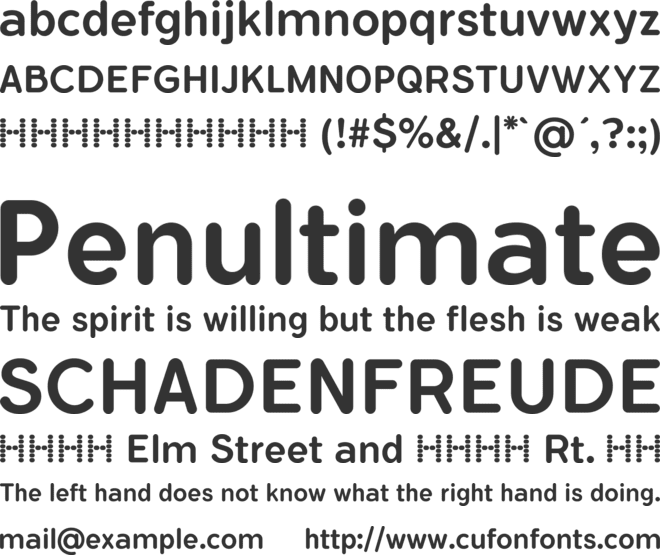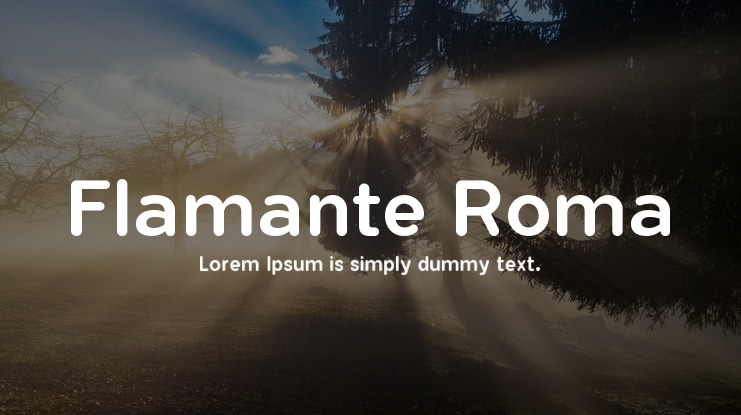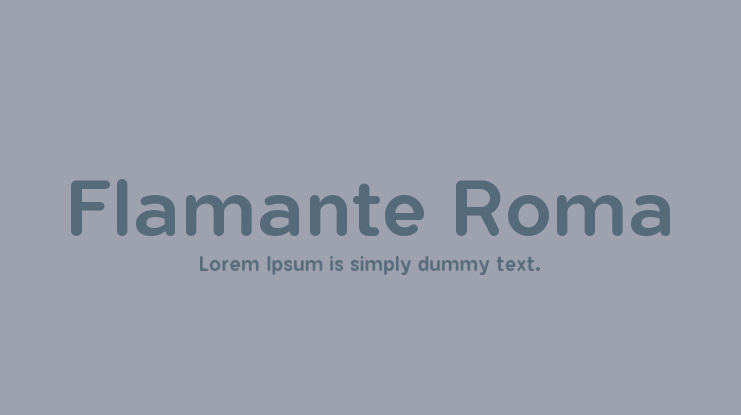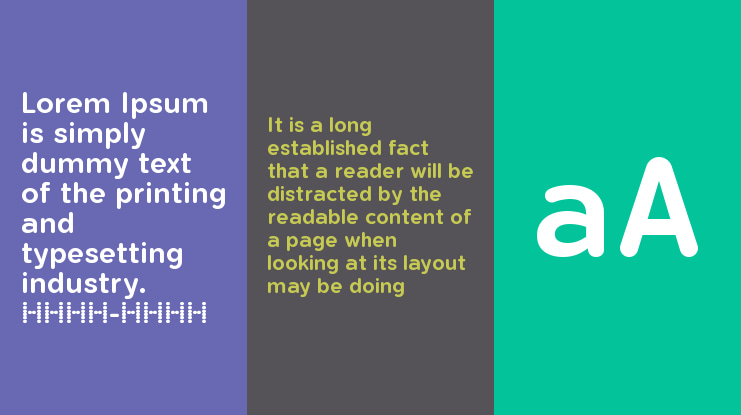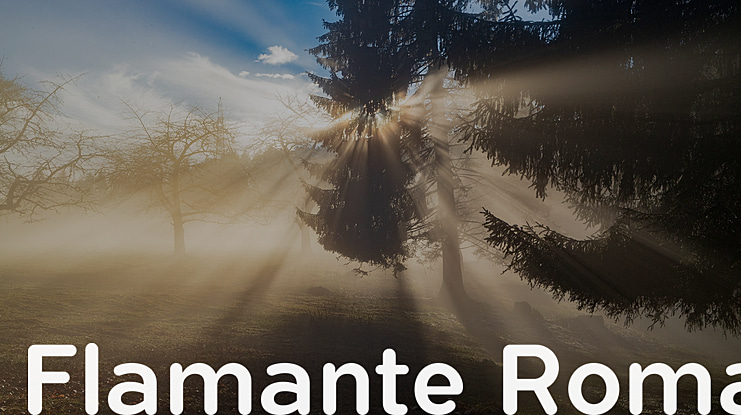
Flamante Roma Font Family
Flamante Roma is a group of eight corporate rounded typographies of geometric construction, rounded and neo-grotesque style, are fonts with an excellent readability for titles, short texts or for use in signage. The group of fonts is made up of 4 weights: Light, Book, Medium & Bold plus their respective italics. ==================== FULL VERSIONS & COMMERCIAL LICENSES: https://wp.me/p11PzK-3wa